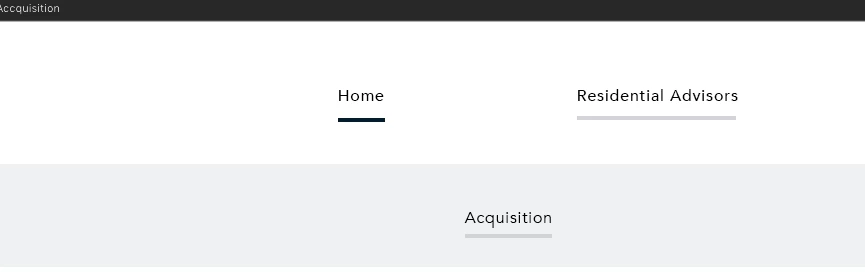
Fonts not displaying correctly in Indesign and Photoshop
I have been having issues with a couple of fonts for a while and have tried different ways to fix it (printing from a PDF, validating fonts, exporting save for web, etc). The main problem is with Avenir. It never looks fully "crisp" or "clear" (hope that makes sense).
I use it for a lot of design stuff, both print and digital, and I feel it never displays correctly.
I have attached a screenshot of how it looks in photoshop.
It might be my eyes playing tricks on me, but I'm sure Avenir looks clearer on Word or on other computers (ie, my home laptop).
I am having the same problem! The font looks chunky and hard to read.